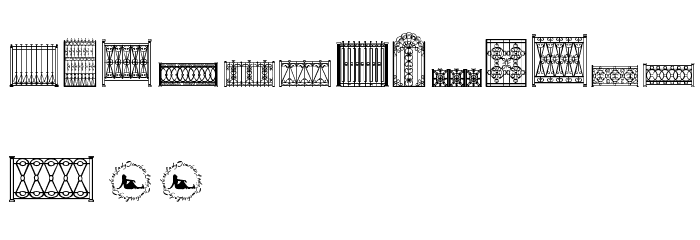
Fenced In LT Font
Fenced In LT Description
A decorative dingbat font featuring a variety of intricate fence and gate illustrations, each glyph representing a unique ornamental fence design with detailed line work and garden motifs.
Ornamental dingbat font with detailed fence and gate illustrations from Dingbats fonts.
- Proposed Projects: Garden design brochures, landscaping company branding, decorative borders, invitations, scrapbooking, themed event materials.
- Contrast: High
- Overall Style: Decorative, Ornamental
- Use Case: Decorative elements, Borders, Themed graphics